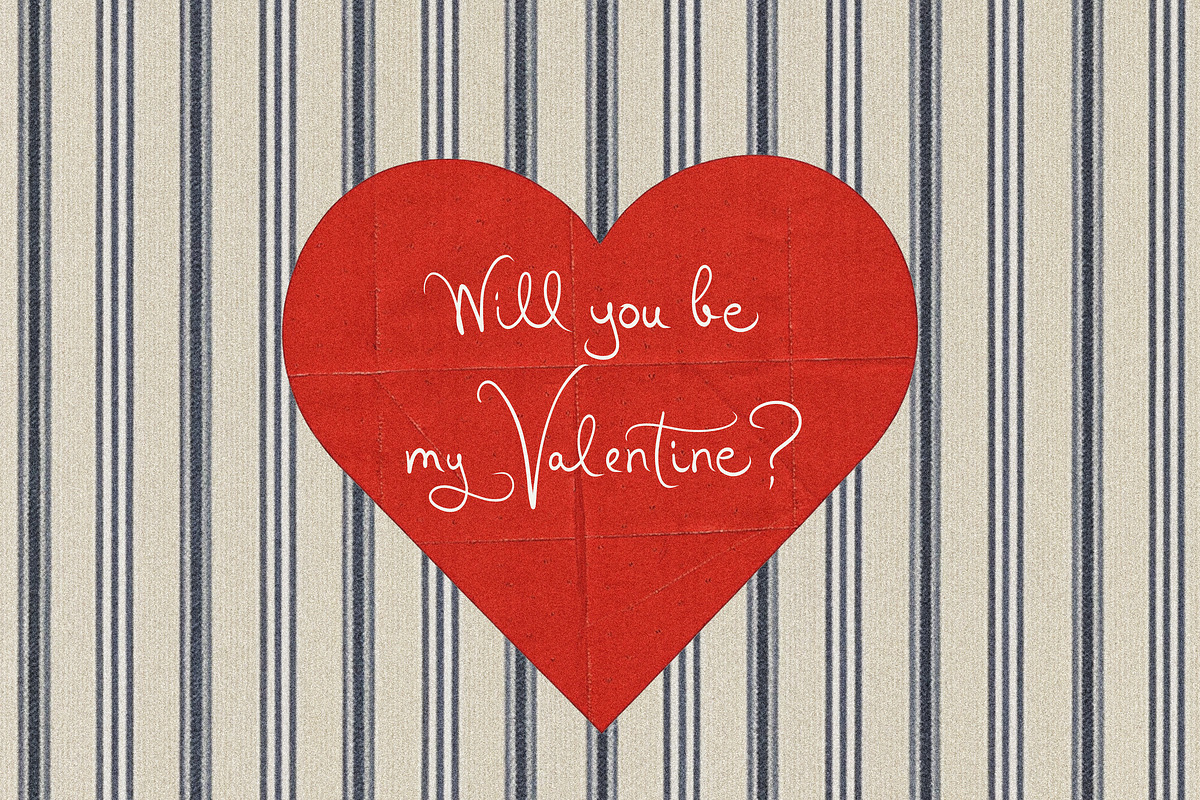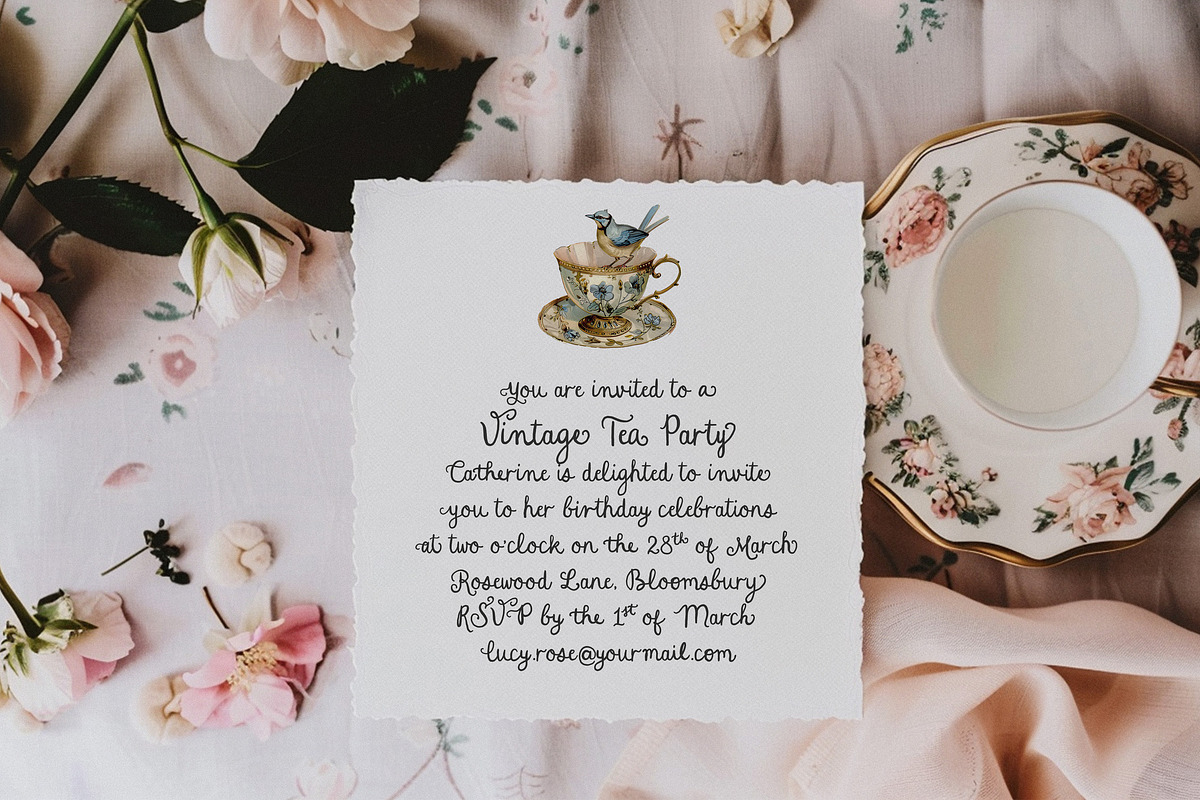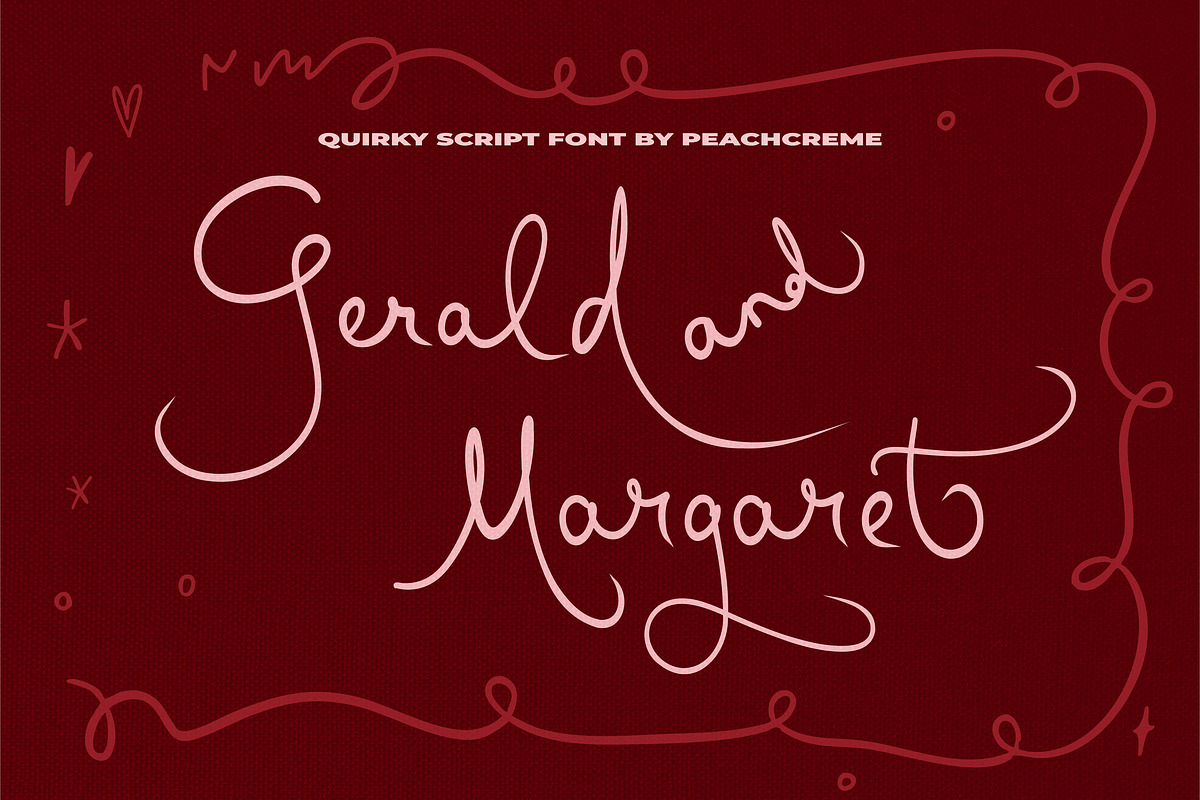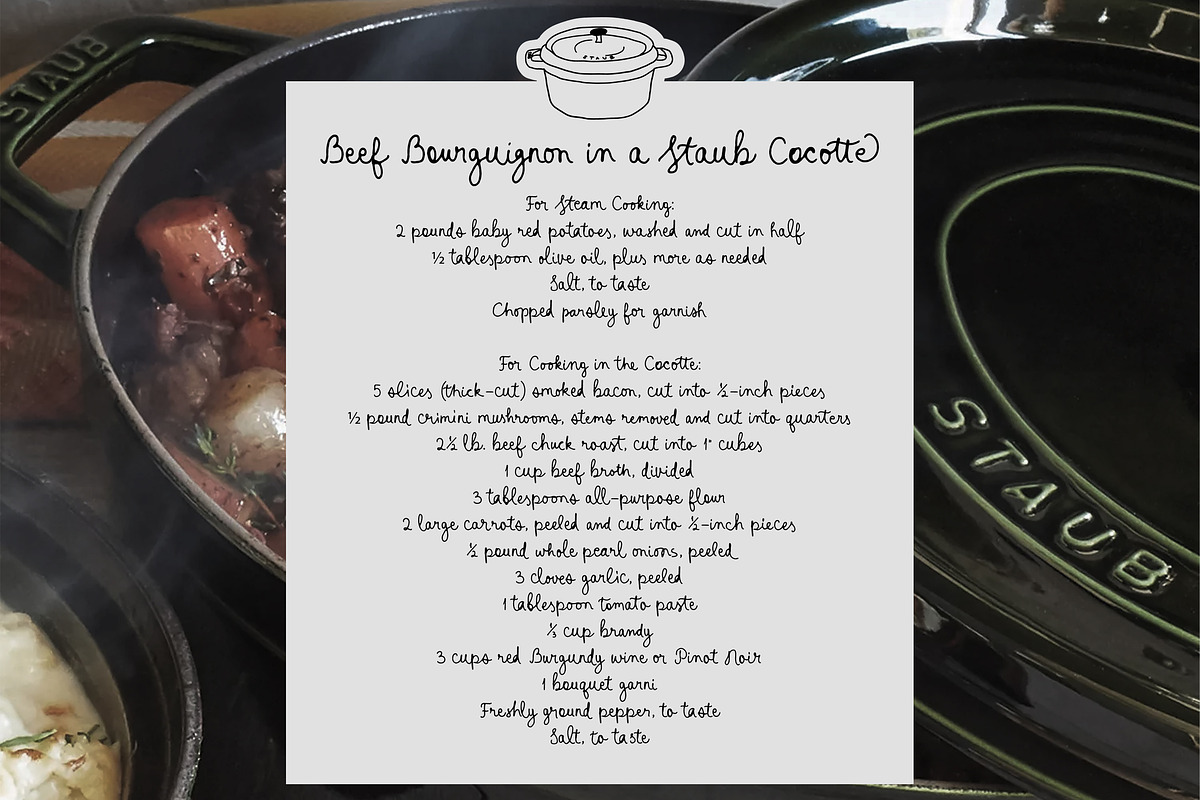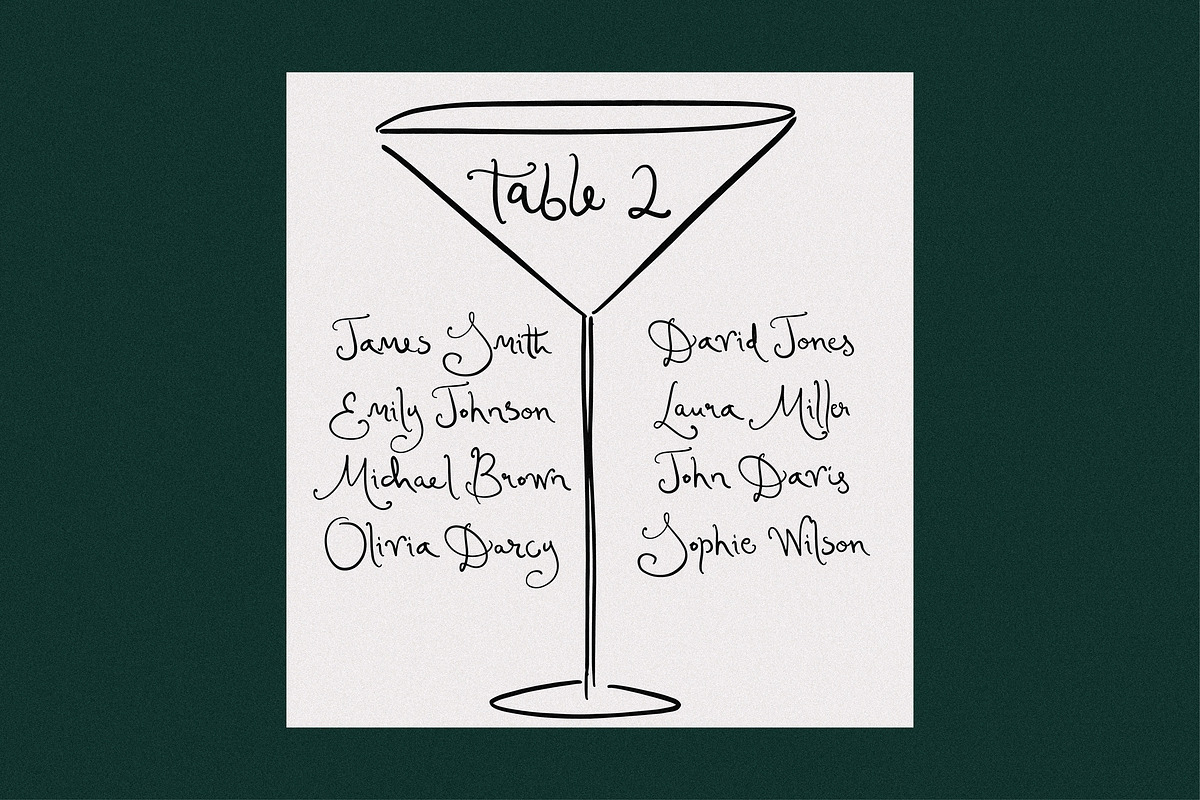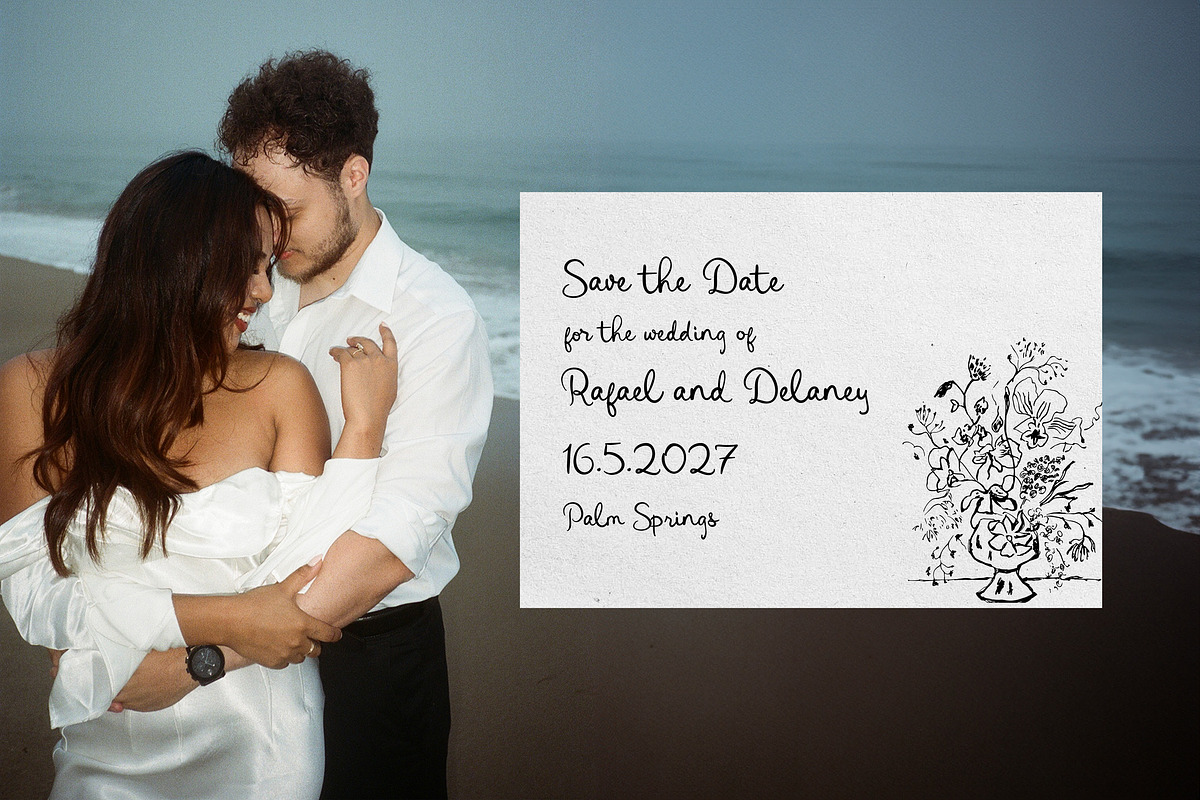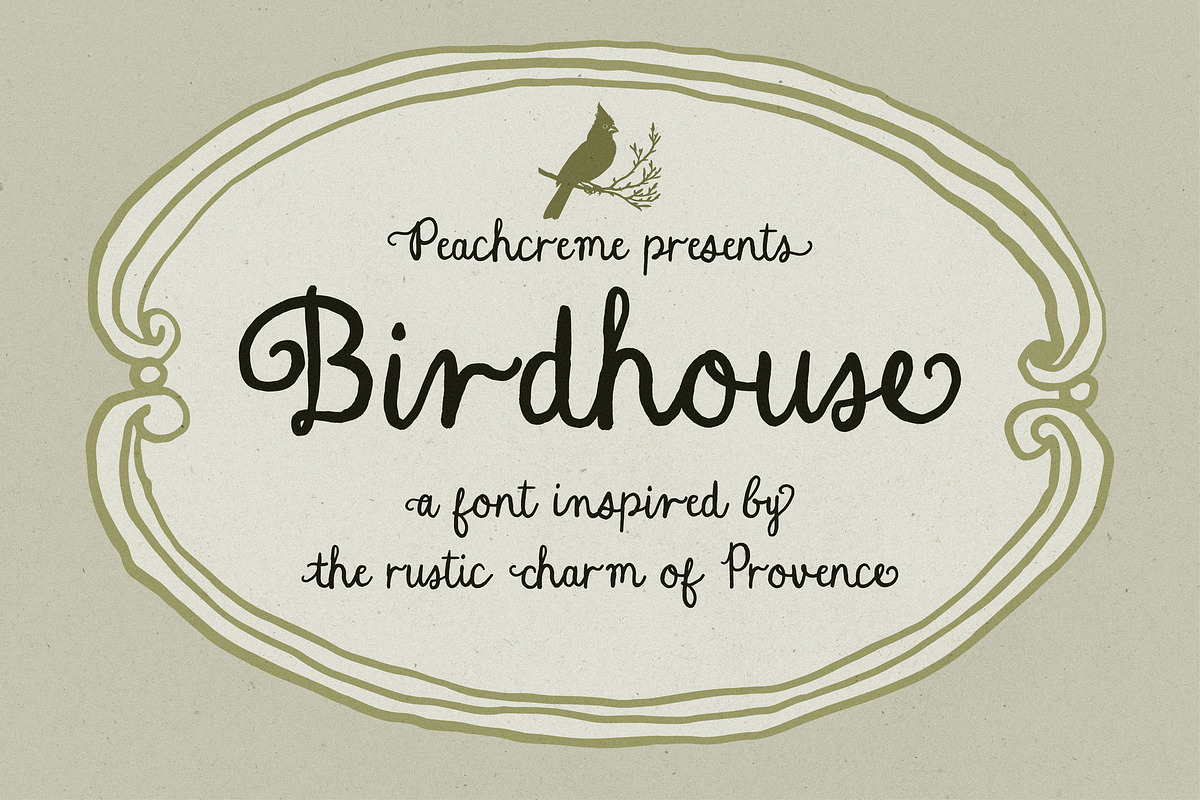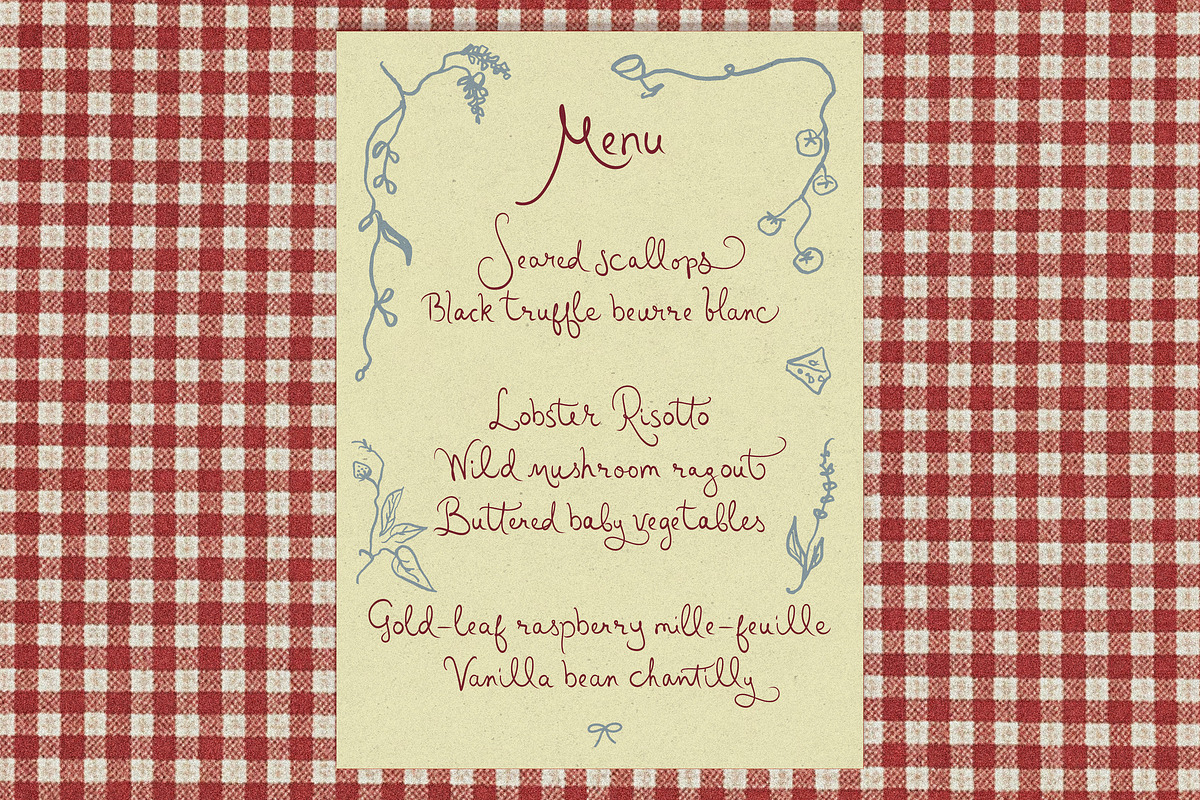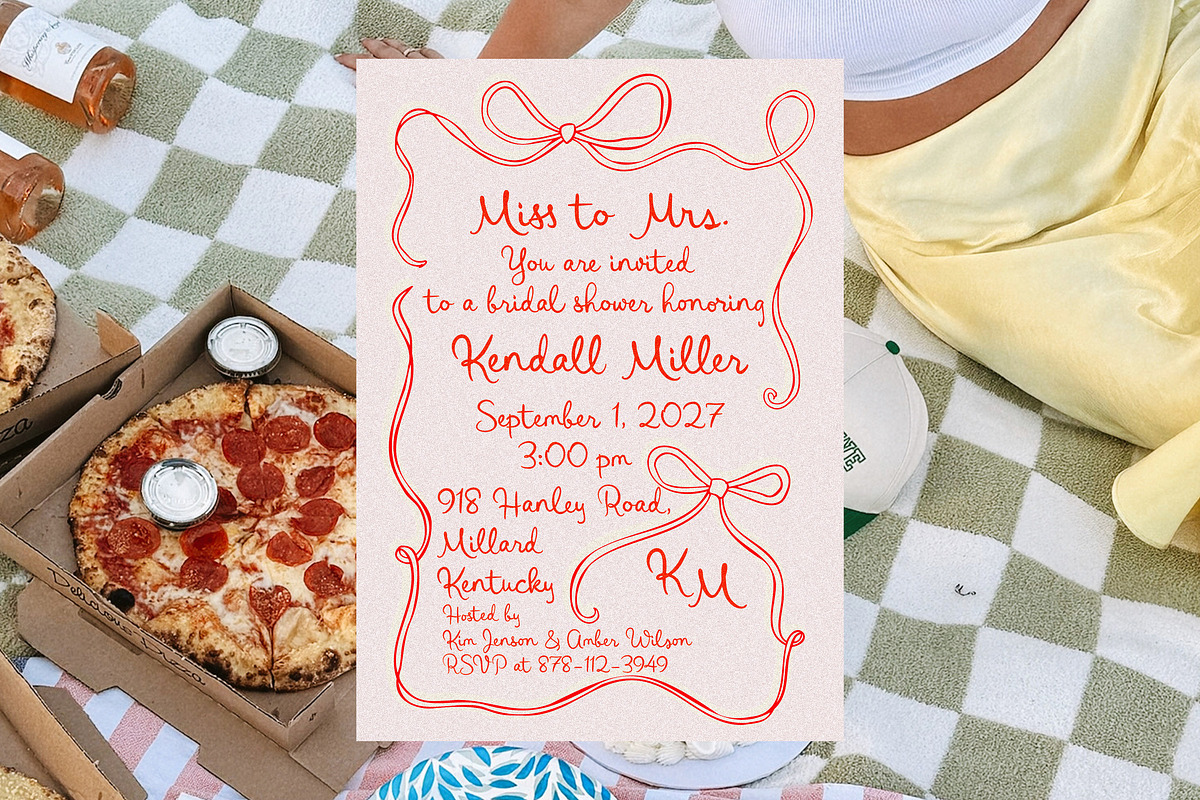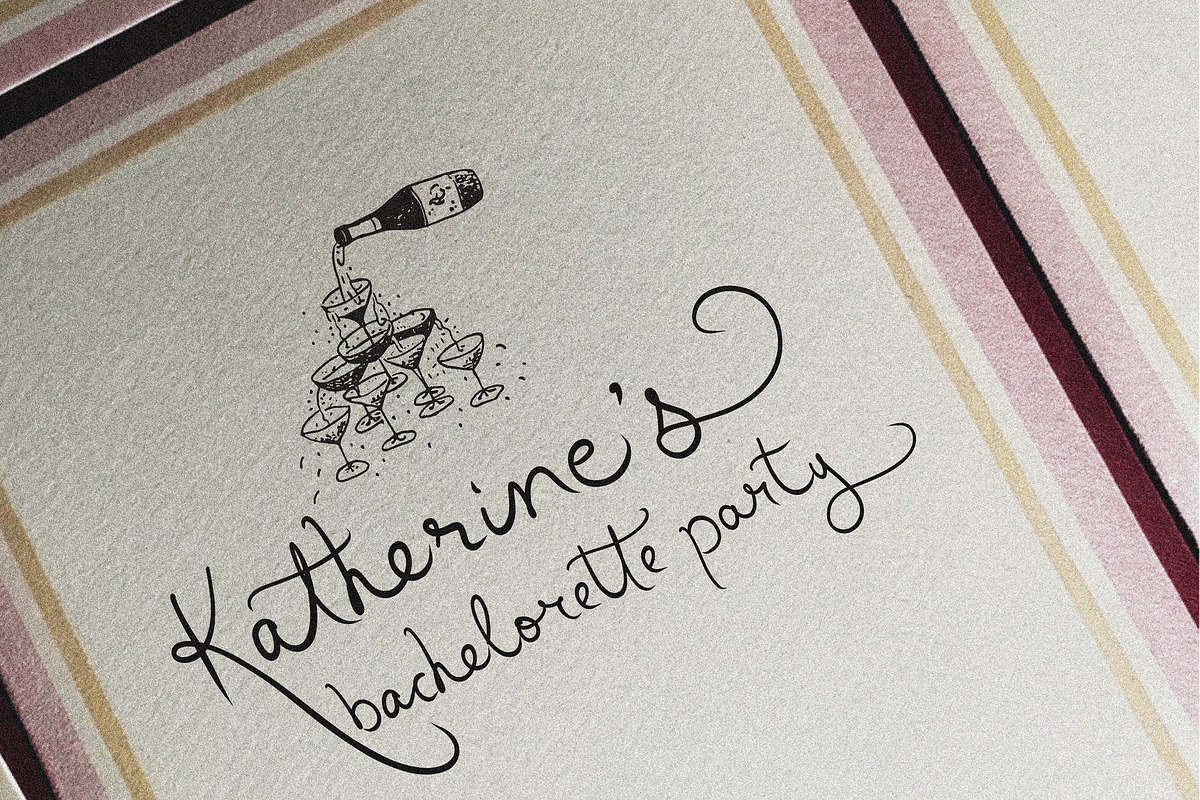
Whimsical Font Bundle by PeachCreme
Whimsical Font Bundle – Handwritten Fonts by PeachCreme
This is a small collection of five handwritten fonts that I made with much love and patience. Each one has a different feeling. Some are more playful, others more romantic or classic. All are drawn by hand, and you will notice small imperfections, which I hope make them feel warm and human.
Included in the bundle:
These fonts work nicely for cards, packaging, invitations, logos, or anything where you want a personal touch.